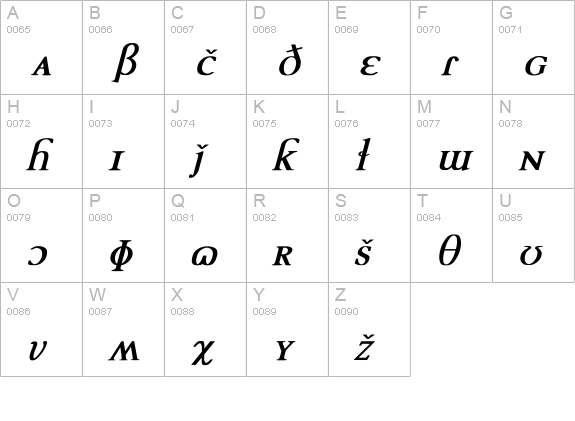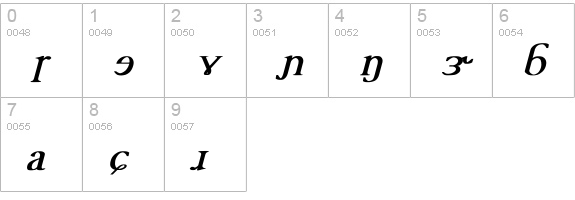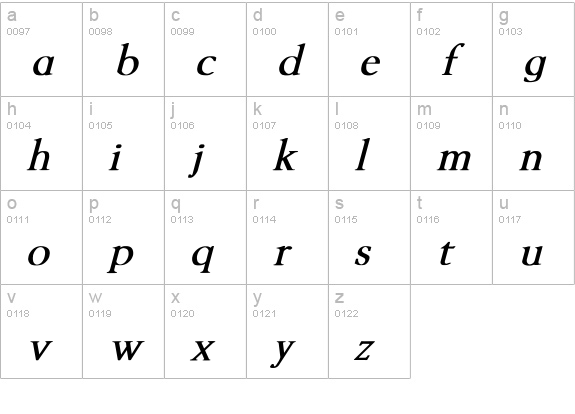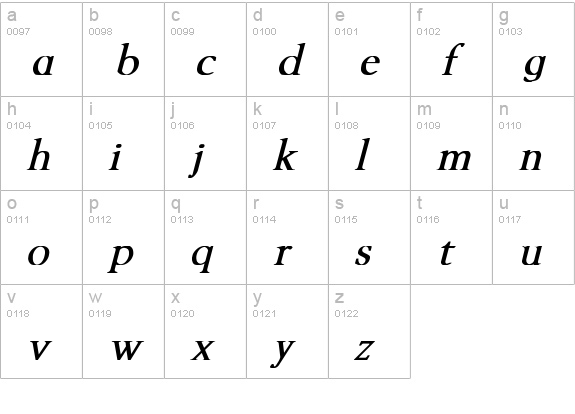
TechPhonetic Bold Italic Font Details
TechPhonetic Bold Italic is a strong, high-contrast, italic variant in the TechPhonetic typeface family \xE2\x80\x94 well suited to headlines, attention-grabbing titles, and strong calls-to-action.
Introducing TechPhonetic Bold Italic Font, the perfect blend of sophistication and modernity. This unique typeface is designed for those who seek to make a bold statement with their typography. With its sleek yet edgy appearance, TechPhonetic Bold Italic Font is sure to captivate attention and add a touch of elegance to any design project. But that's not all - TechPhonetic Bold Italic Font is not only visually stunning, but it also comes with the added benefit of being freely available to download at FontsMarket.com. Yes, you read that right, this remarkable font can be yours at absolutely no cost. Say goodbye to expensive font licenses and hello to creative freedom. Whether you're working on a website, logo, poster, or any other design endeavor, TechPhonetic Bold Italic Font is the perfect choice to elevate your visual communication. Its clean lines and distinct curves create a harmonious balance that is both eye-catching and legible. Your content will effortlessly stand out, ensuring that your message is delivered with impact and professionalism. TechPhonetic Bold Italic Font is meticulously crafted to provide versatility and flexibility in various design contexts. Its bold and italicized variations allow for dynamic visual compositions, enabling you to highlight important elements or add emphasis where needed. This font truly brings your creativity to life. Downloading TechPhonetic Bold Italic Font from FontsMarket.com is quick and easy. Simply head over to the website, locate the font, and click the download button. In no time, you'll have this remarkable font at your fingertips, ready to enhance your designs and captivate your audience. So why wait? Experience the power of TechPhonetic Bold Italic Font today and unlock a world of design possibilities. With its striking aesthetics, freely available nature, and seamless integration into any project, this font is an essential tool for any designer or creative professional. Download TechPhonetic Bold Italic Font now and let your imagination run wild.